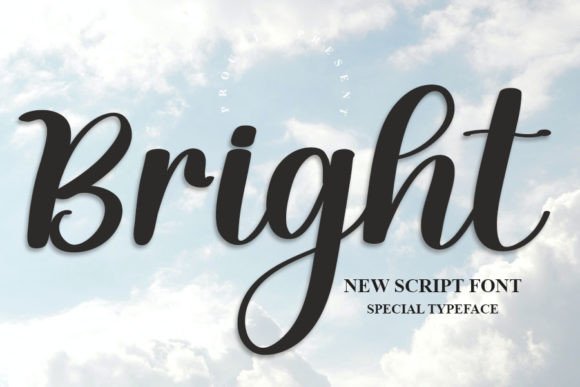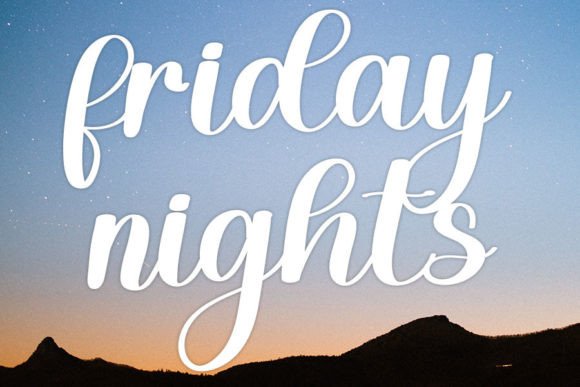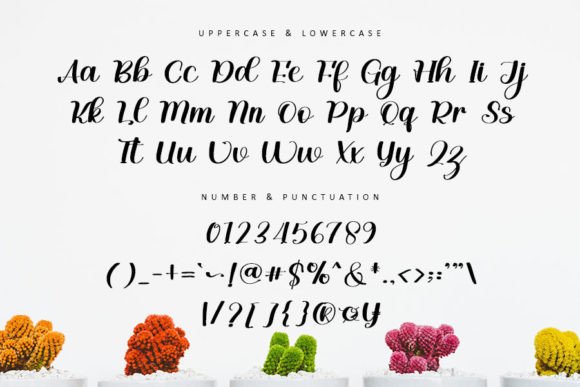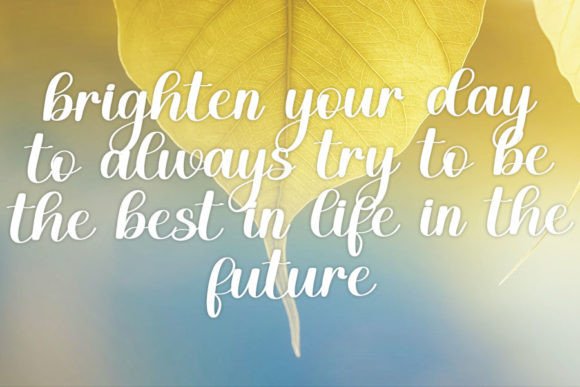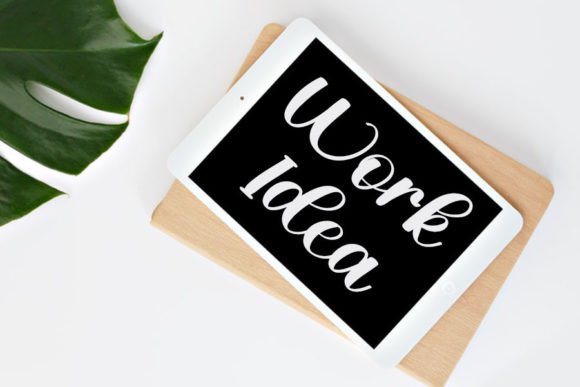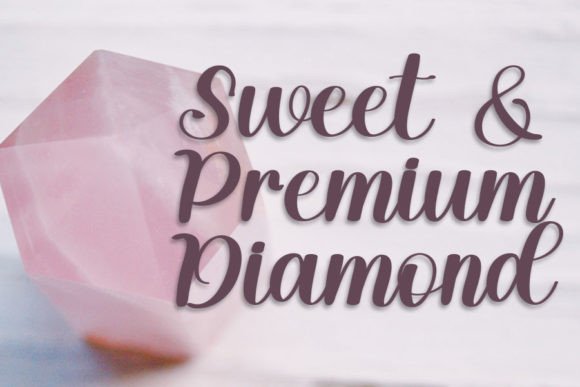
Bright Font
Bright: A Romantic Handwritten Script Font for Elegant Designs
If you’re searching for a romantic handwritten script font that delivers both elegance and versatility, Bright is a fantastic choice. With its soft curves and graceful lines, Bright adds a personal touch to any design while maintaining a clean and timeless look.
Ideal for special occasions and heartfelt projects, Bright communicates emotion in every letter.
Elegant Design Possibilities with This Handwritten Font
This stylish script font is carefully designed to be adaptable and visually appealing. It’s not just about beauty—it’s about expression. Whether you’re creating digital artwork or printed materials, Bright fits seamlessly into your workflow.
Here’s where Bright works perfectly:
• Wedding invitations and romantic event stationery
• Greeting cards for holidays, birthdays, and anniversaries
• Stylish logos and personal branding
• Instagram graphics and Pinterest visuals
• Product packaging and handmade crafts
• Blog headers and quote overlays
Bright brings both warmth and sophistication to all of the above.
Why Bright Is a Favorite Among Creatives
Many designers love Bright because it feels personal and professional at the same time. It’s a romantic calligraphy-style font that keeps your text clear, which is essential for impactful messaging. Additionally, the balance of boldness and delicacy ensures your content remains engaging.
Here’s what makes Bright stand out:
• Smooth handwritten style with excellent legibility
• Looks amazing in both large titles and small captions
• Adaptable across various creative platforms
• Adds emotional value to any type of content
• Enhances storytelling in design
Ideal for Projects That Deserve a Romantic Touch
This romantic font style is perfect for people who want to make an emotional impact through design. Whether you’re a designer, crafter, or entrepreneur, Bright can help you create visuals that truly connect.
Some popular use cases include:
• Personalized wedding materials
• Handwritten quotes or journaling
• Luxury branding and boutique labels
• Digital artwork and creative merchandise
• Sentimental gifts or printables
With Bright, every word feels more heartfelt.
Bright is more than just a script font. It’s a tool for telling stories, sharing emotions, and adding beauty to your work. If you’re ready to design with elegance and warmth, this romantic handwritten script font is the perfect place to start.